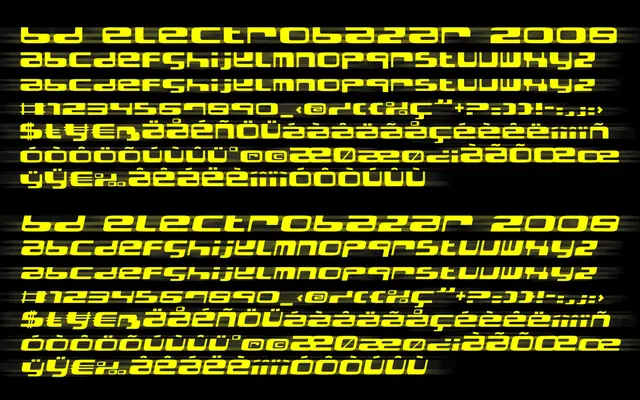
BD Electrobazar 2008
A rave-culture display face from 1995, updated in 2008, originally distributed by Büro Destruct on floppy disk for the European club scene.
Originally created in 1995 as part of the Büro Destruct catalogue and sold commercially by Apply Design Group in Germany, the typeface found its footing on event flyers, posters and album covers tied to the techno and rave circuit. The 2008 update expanded the glyph set while preserving the angular, hard-edged character of the original. Available in Regular and Italic, it covers a broad range of Latin-based European languages.
A club-culture display face with angular, mechanical letterforms designed for rave and techno aesthetics. The all-caps character and event-poster heritage place it firmly in the display category.